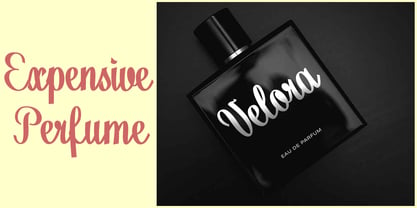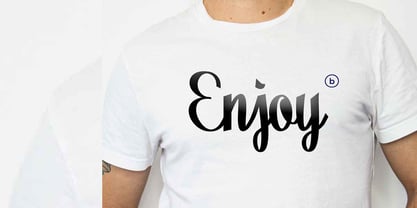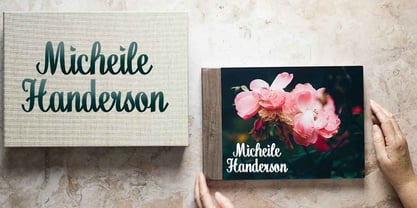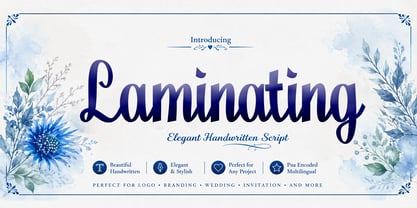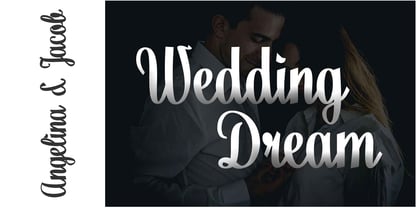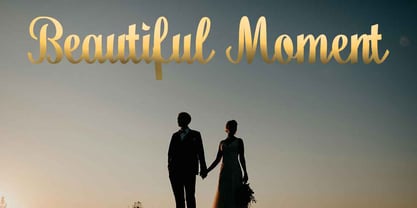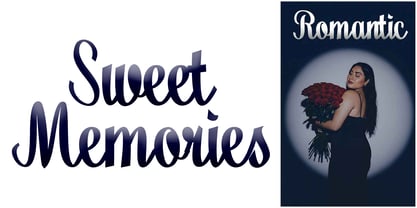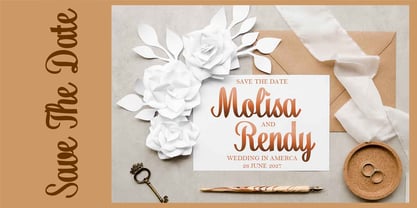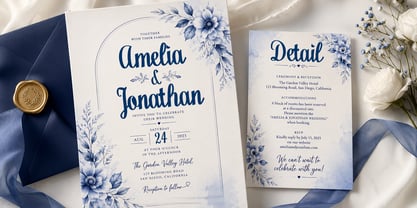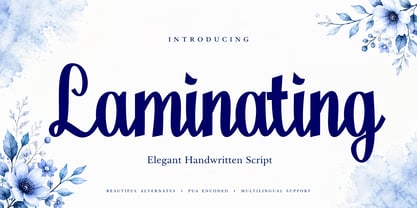
Laminating
The Laminating Font Family was designed by Teuku Saifullah and published by Shape Studio. Laminating contains 2 styles and family package options. More about this family
Laminating is an elegant handwritten script font designed to bring beauty, charm, and sophistication to your creative projects. Featuring smooth flowing strokes, graceful curves, and a naturally handwritten appearance, this font creates a warm and personal touch while maintaining a refined and professional look.
Perfect for wedding invitations, branding, logos, packaging, social media, greeting cards, product labels, photography watermarks, and feminine design projects, Laminating delivers a timeless handwritten style that feels both modern and luxurious.
Its stylish letterforms and balanced rhythm make it highly versatile for a wide range of applications, from elegant branding to romantic stationery.
Features: • Uppercase & Lowercase Characters • Numerals & Punctuation • Multilingual Support • PUA Encoded • Smooth Handwritten Style • Elegant Ligatures • Easy to Use
Perfect for: Wedding Invitations, Branding, Logos, Beauty Products, Boutique Businesses, Packaging, Social Media Graphics, Greeting Cards, Photography, Fashion Branding, and Luxury Design Projects.